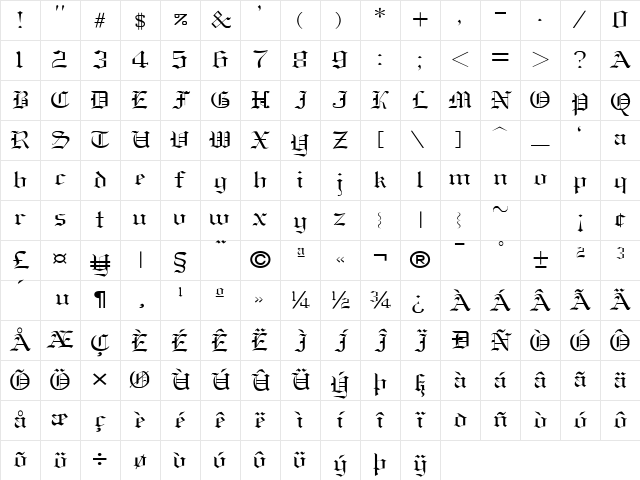
Complete Old-English-Nue Normal glyph index. Displaying only characters natively supported by Old-English-Nue Normal font.
Old-English-Nue is a composed and adaptable typeface that performs quietly and consistently across a wide range of design contexts.